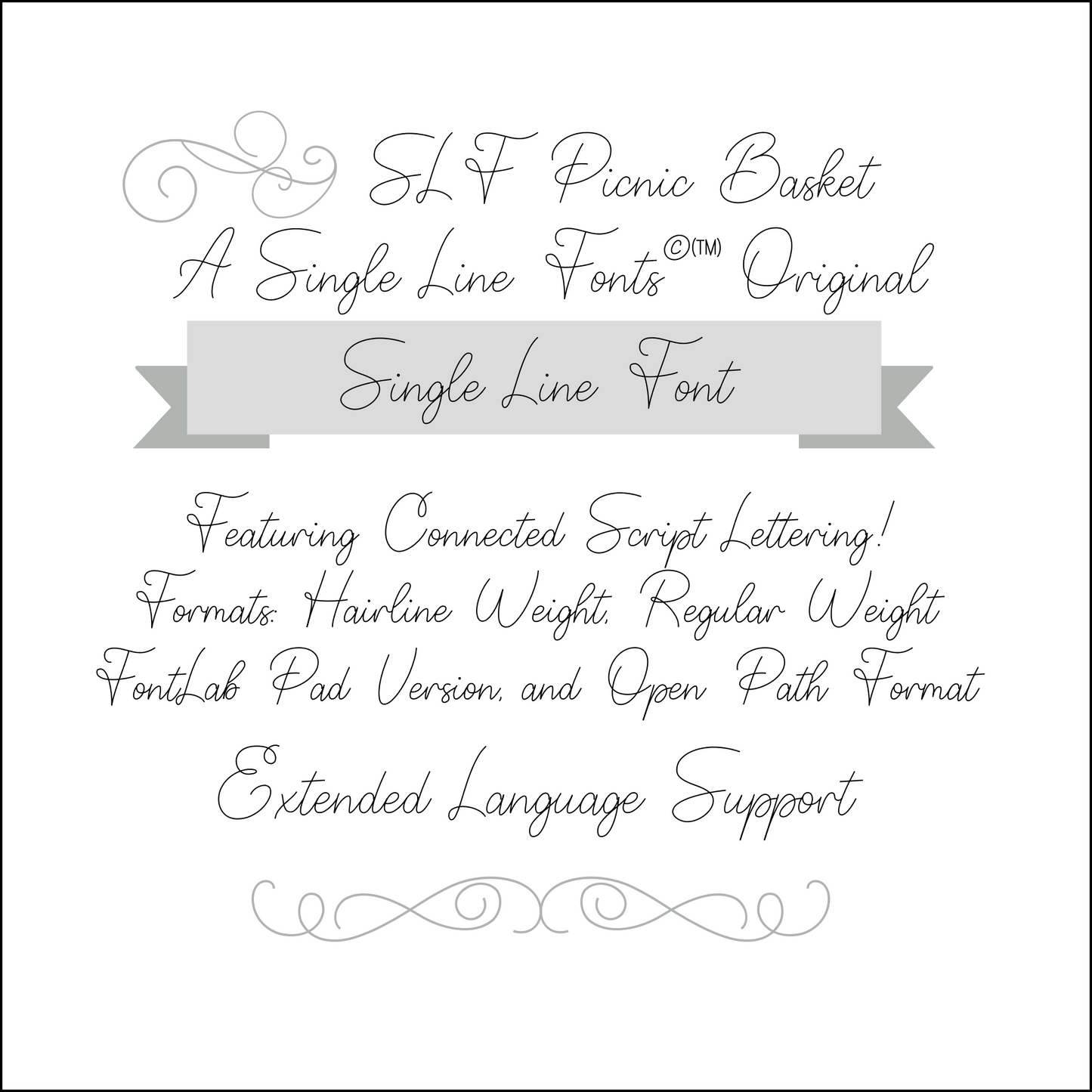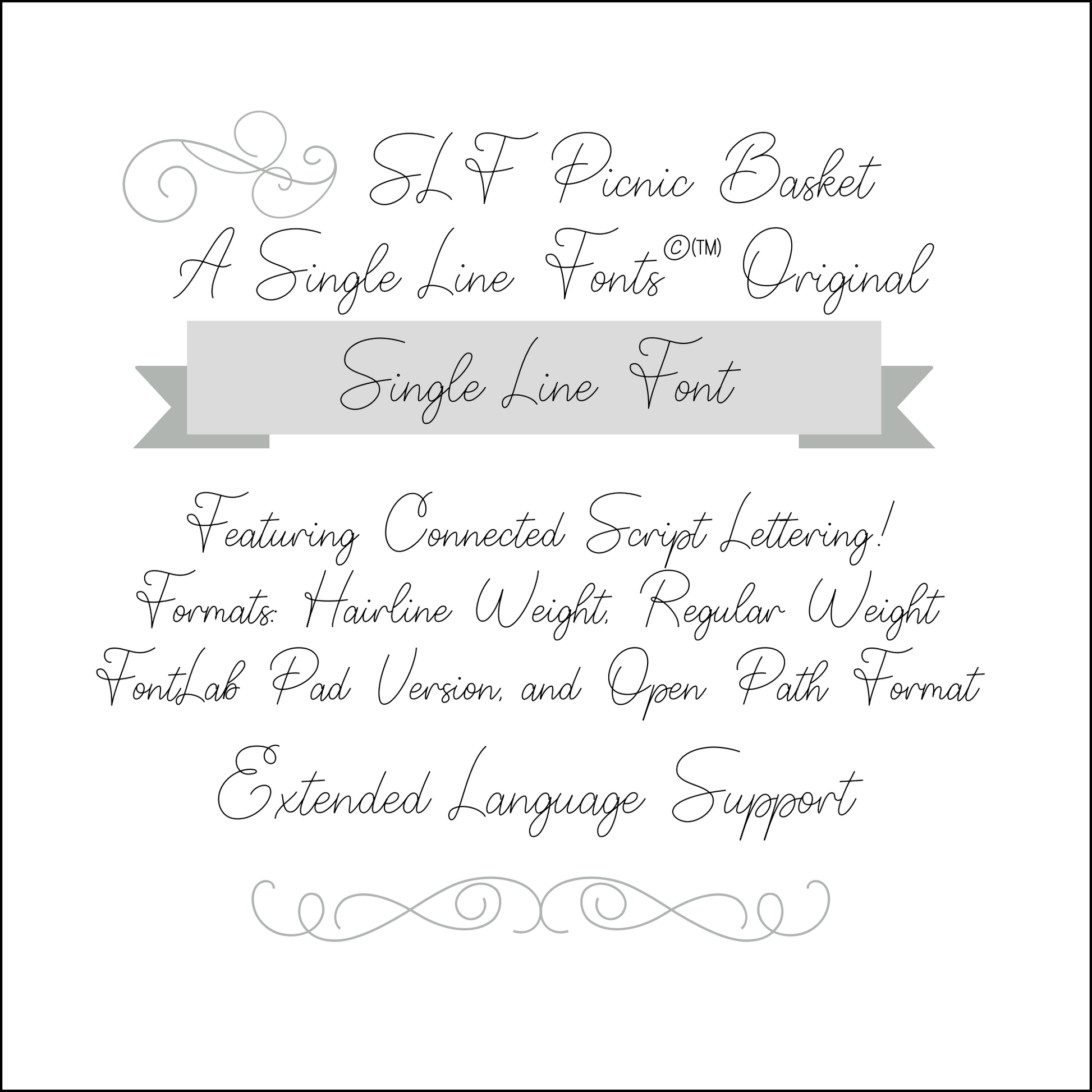
SLF Picnic Basket – Single Line Print Font for Engraving & Crafting
SLF Picnic Basket is a friendly, casual single line print font with a cheerful, open style that works beautifully for engraving, scoring, sketch pen tools, CNC projects, and everyday creative crafts. Its smooth letterforms and balanced proportions make it perfect for picnic-themed designs, invitations, labels, signage, and personalized gift projects.
This monoline font includes a full character set with uppercase and lowercase letters, numbers, punctuation, symbols, and accented characters for multilingual support.
• Invitations, labels, signs, and casual crafts